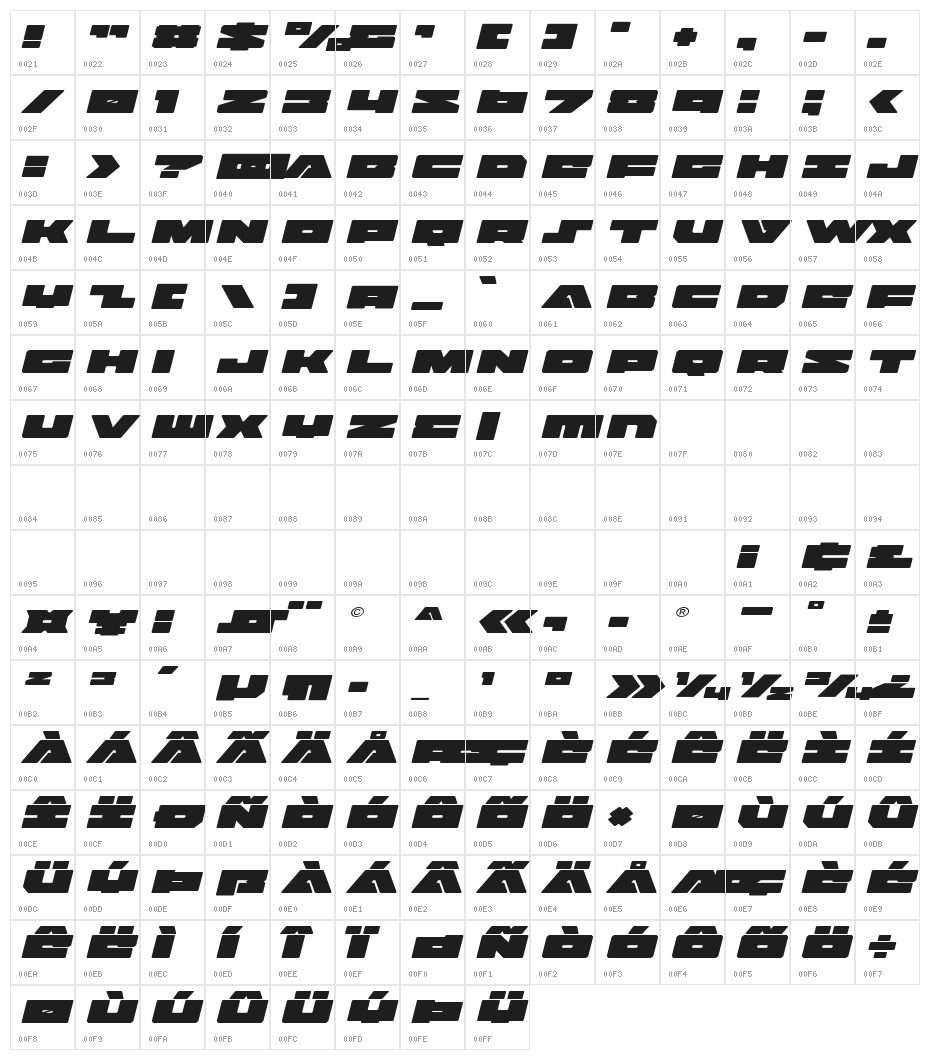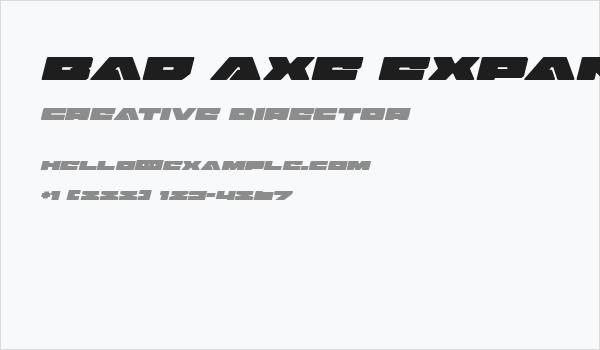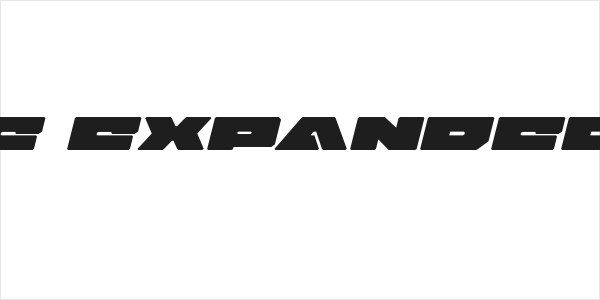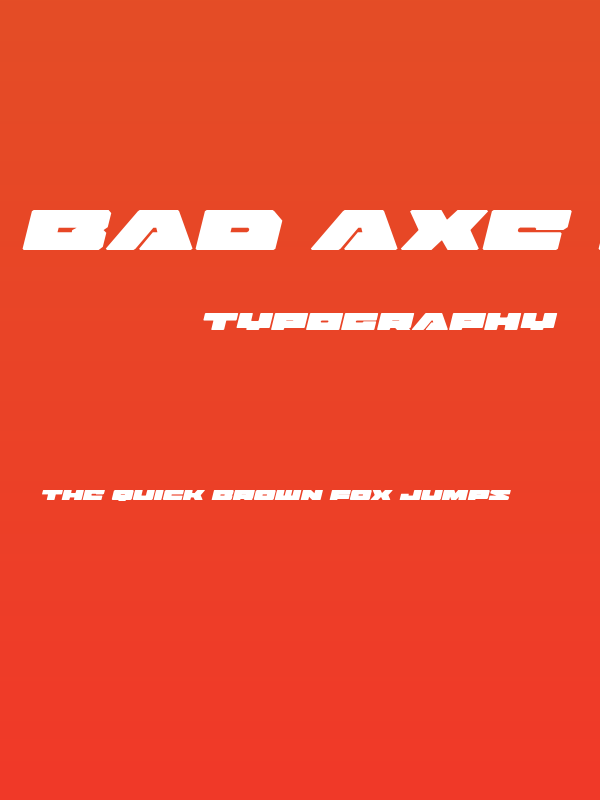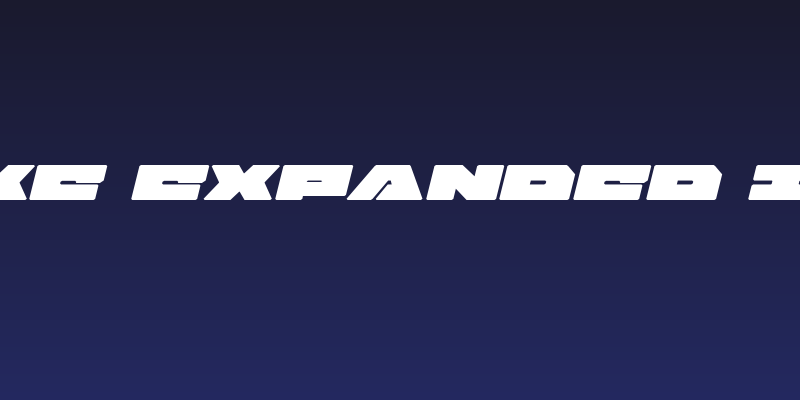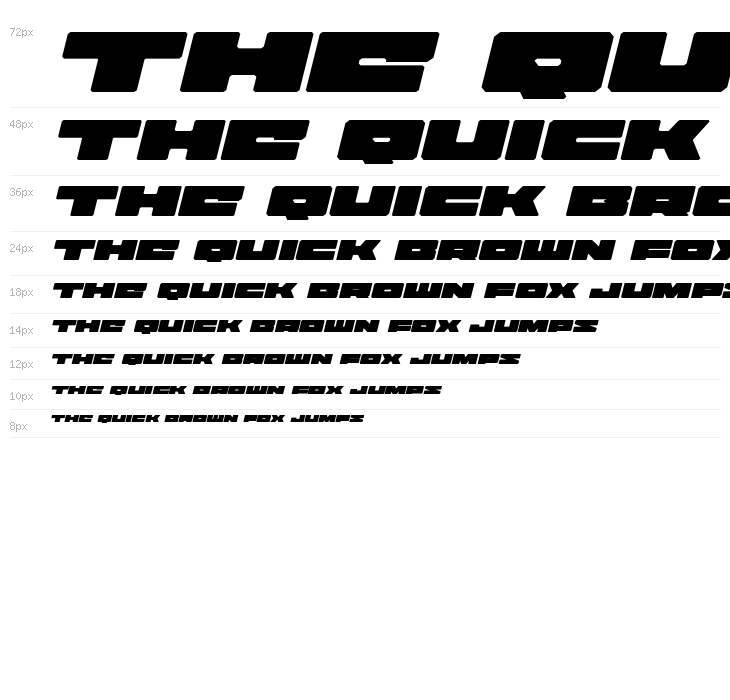
Bad Axe Expanded Italic Font
Bad Axe Expanded Italic Description
This font features a bold, geometric design with a distinctly modern and futuristic appeal. The characters are expanded and italicized, giving them a dynamic, forward-leaning posture. Each letter and number is crafted with sharp angles and thick strokes, creating a strong visual impact. The font's design is consistent across uppercase and lowercase letters, as well as numerals and special characters, maintaining a cohesive look. The expanded width of the characters adds to its boldness, making it ideal for attention-grabbing headlines or titles. The italic slant enhances the sense of motion and energy, suitable for projects that require a modern and edgy aesthetic.
| Proposed Projects | Ideal for sci-fi themed designs, video game titles, posters, and branding that requires a strong, modern impact. |